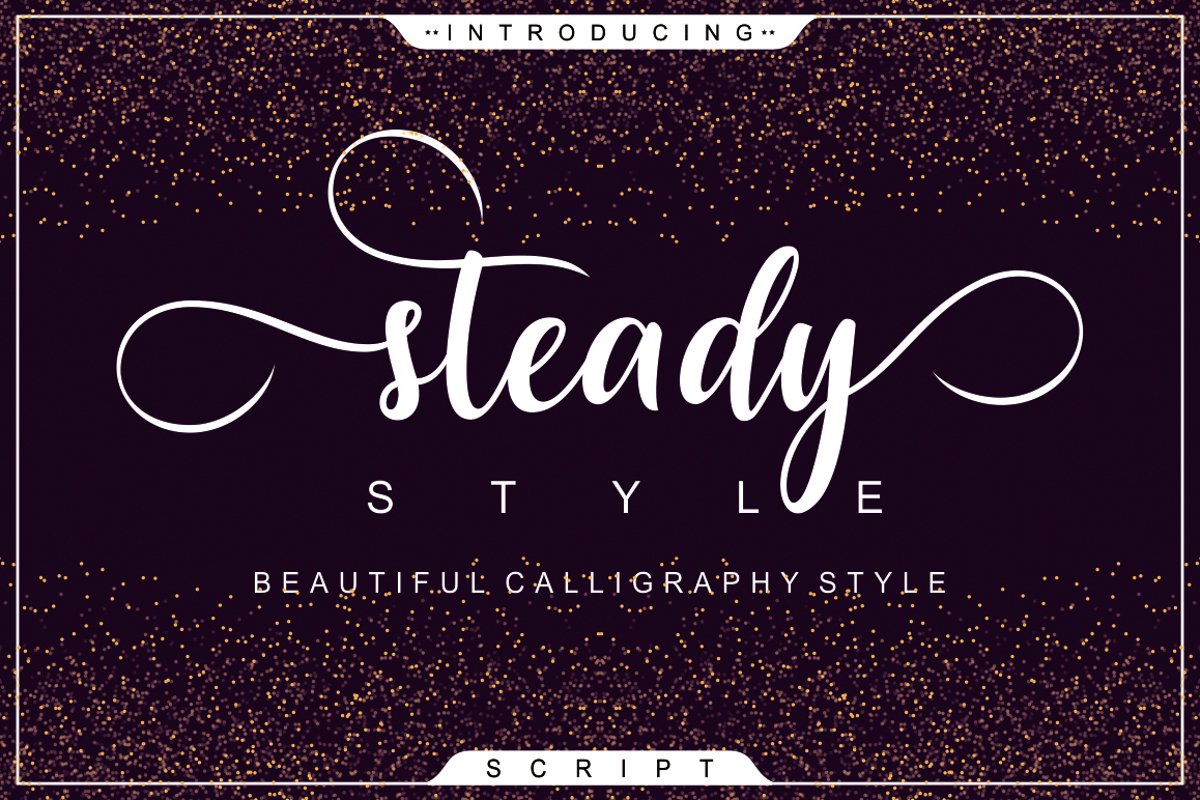
Steady Style Script
Steady Style Script is a unique script font with PUA encoded extras. These romantic swirls can be used for a variety of craft and design projects.